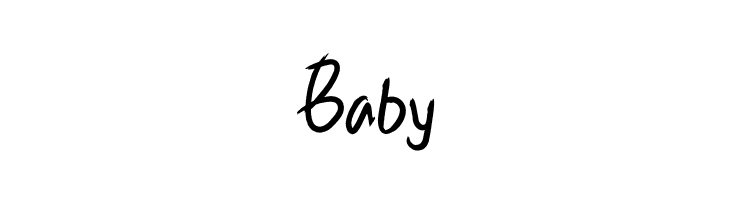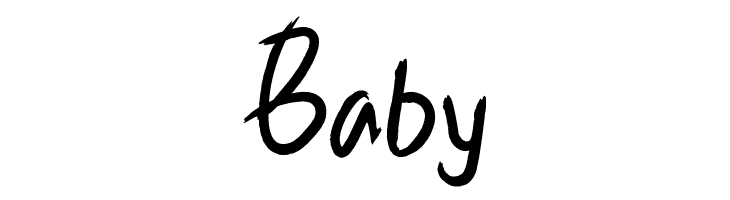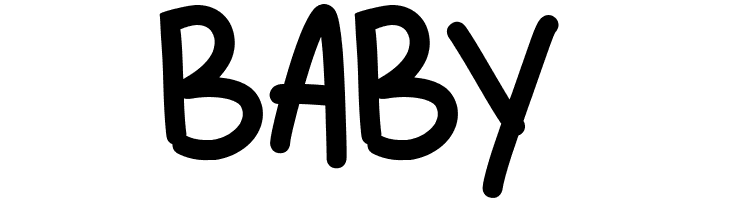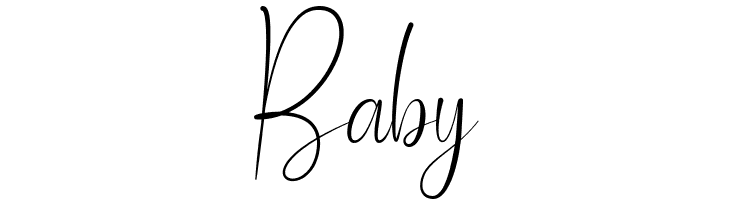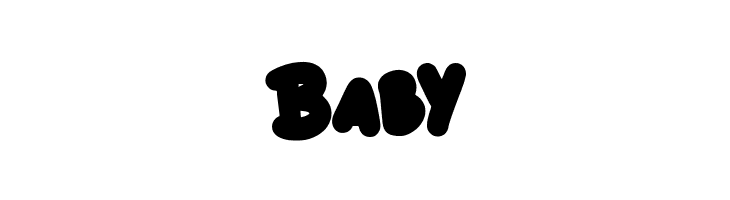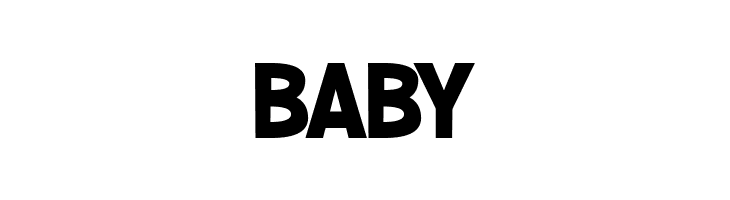
A casual, elegant handwritten script with fluid, interconnected letters.
An elegant, flowing script font with thin, elongated strokes and graceful curves.
A bold, modern font with thick, uniform strokes for impactful design.
A dynamic and elegant script font with flowing, slender letterforms.
A bold, playful font with thick, rounded strokes and a bubbly appearance.
A bold, playful handwritten font with rounded, irregular letterforms.
A dynamic, modern font with elongated, slanted characters and a bold presence.
A dynamic, handwritten-style font with a playful and energetic character.
A lively handwritten font with fluid strokes and dynamic character.
A dynamic handwritten font with fluid, expressive strokes and a playful style.